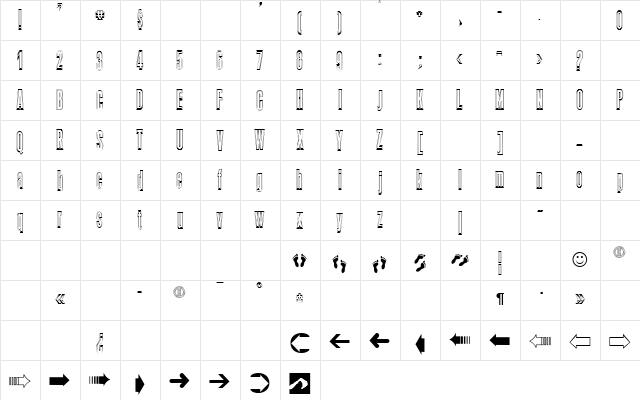
Quote Outline Normal
Design Context for Quote Outline Typeface
Quote Outline brings ornamental detail and strong personality to headlines and identities, where visual impact matters more than quiet functionality.
Font Pairing: Pair with a clean neutral sans-serif for body copy to let Quote Outline's character lead without overwhelming the composition.
Pro Tip: Treat Quote Outline as the centrepiece of your typographic hierarchy. One strong heading set in a decorative face can carry an entire layout.